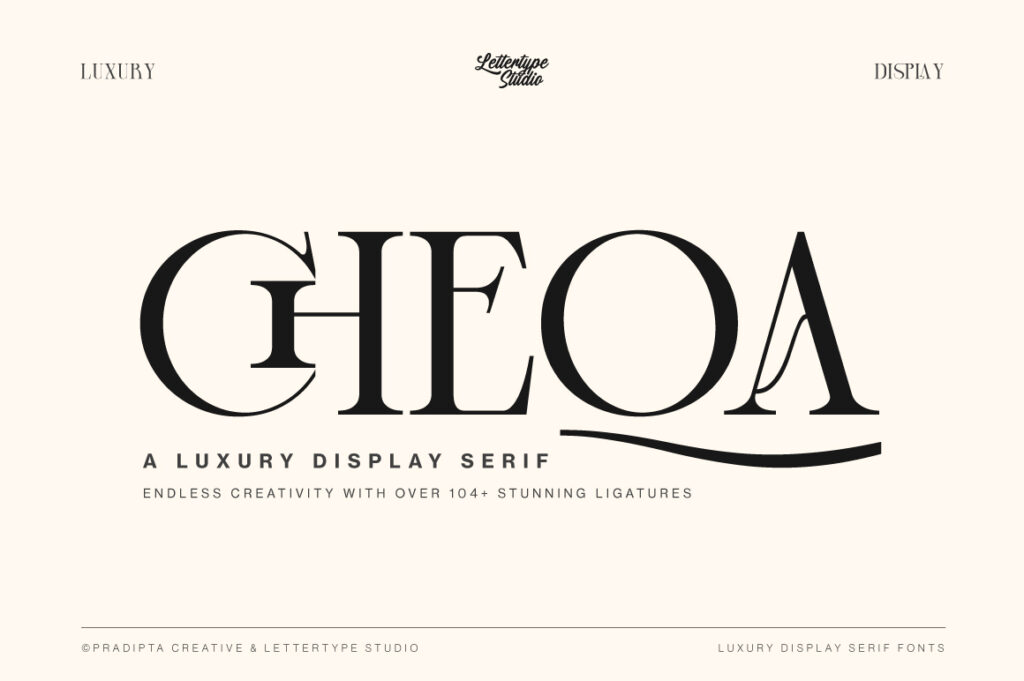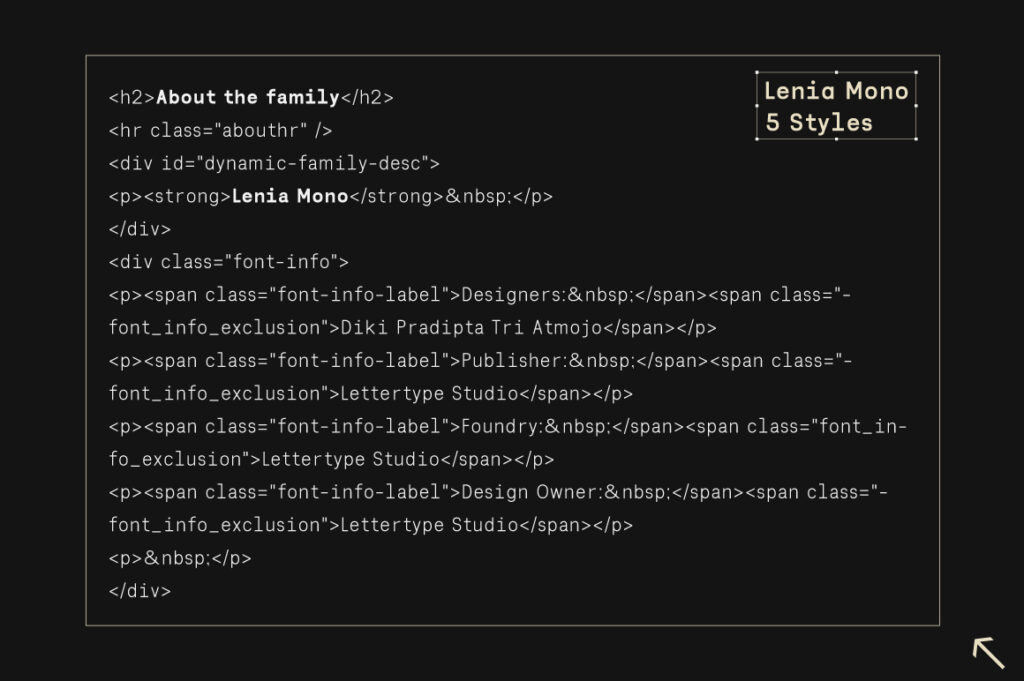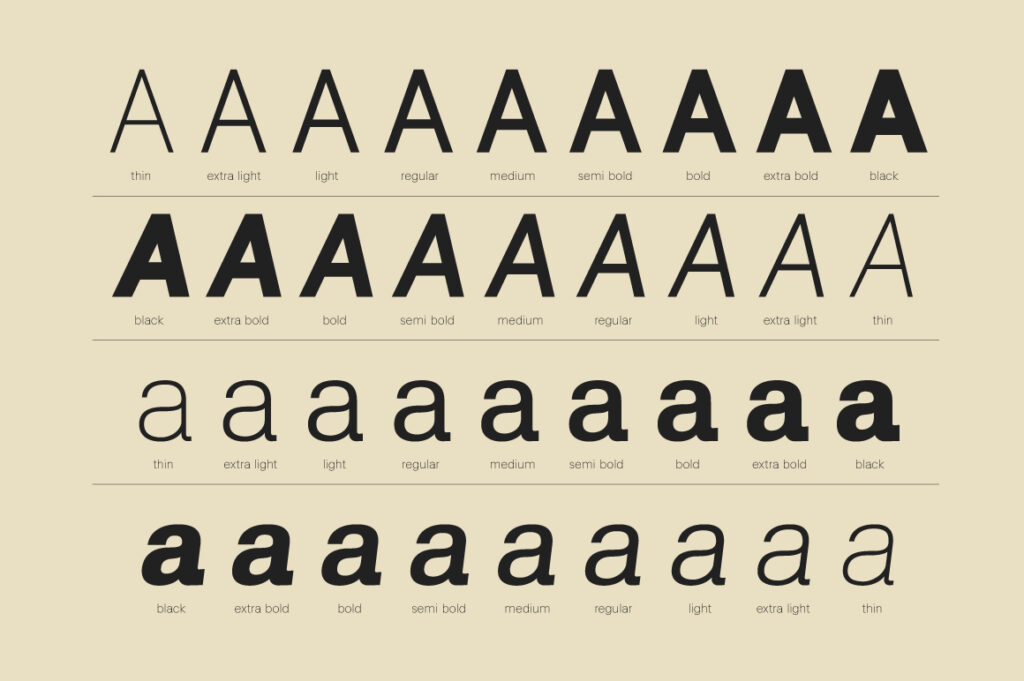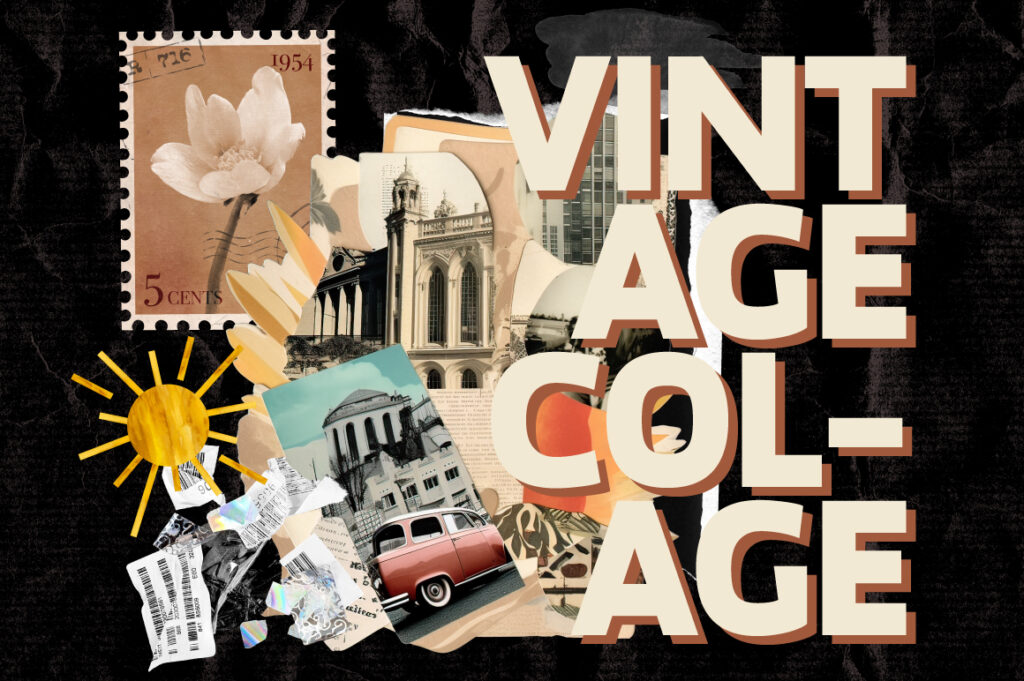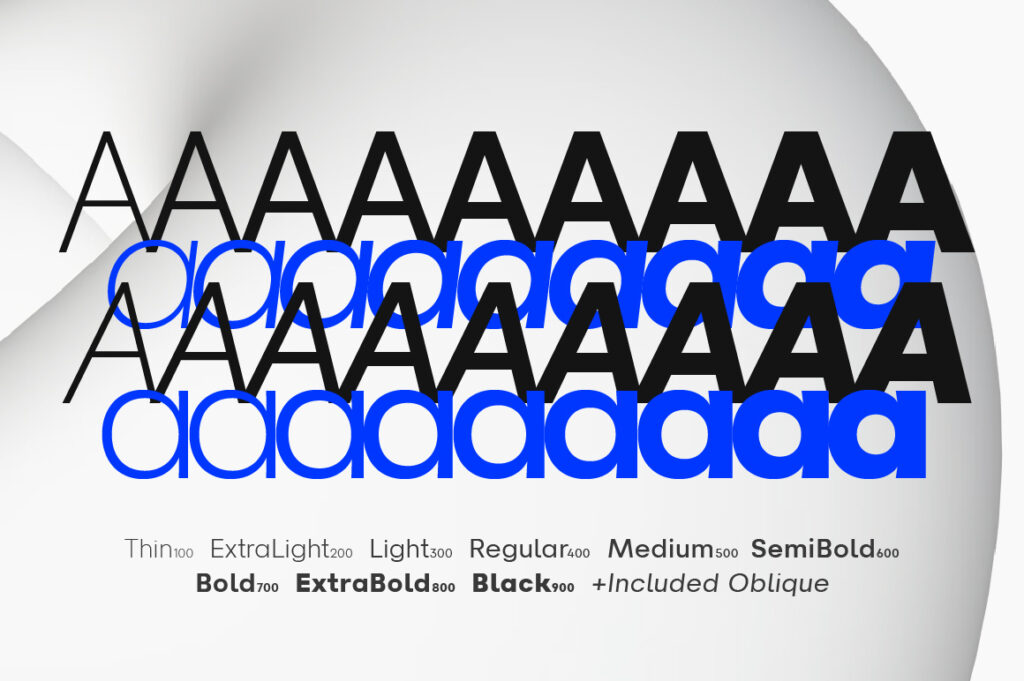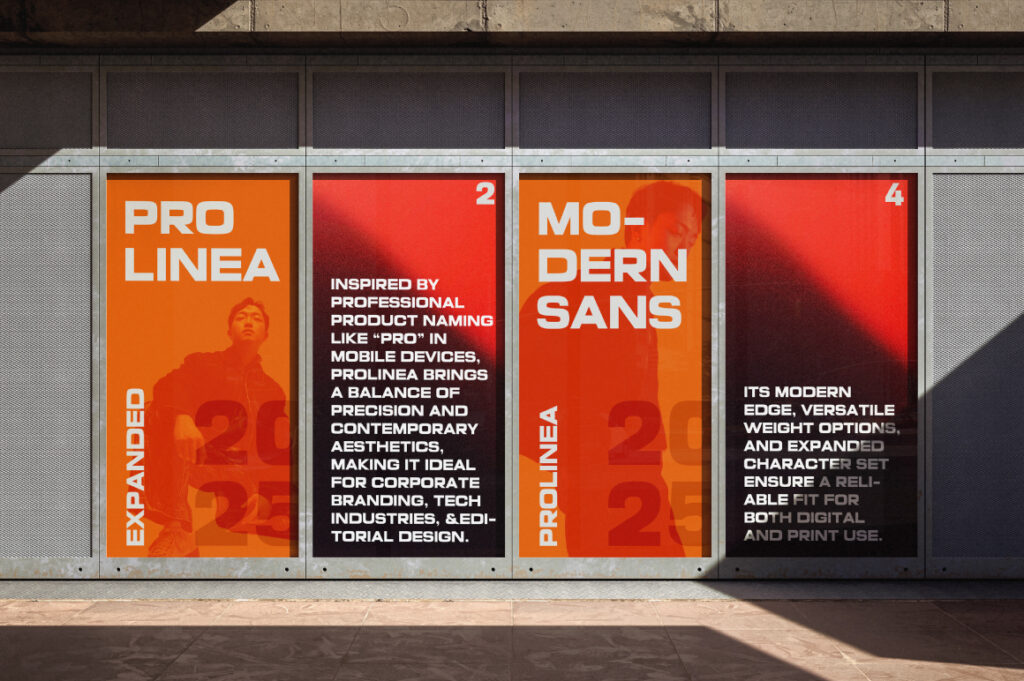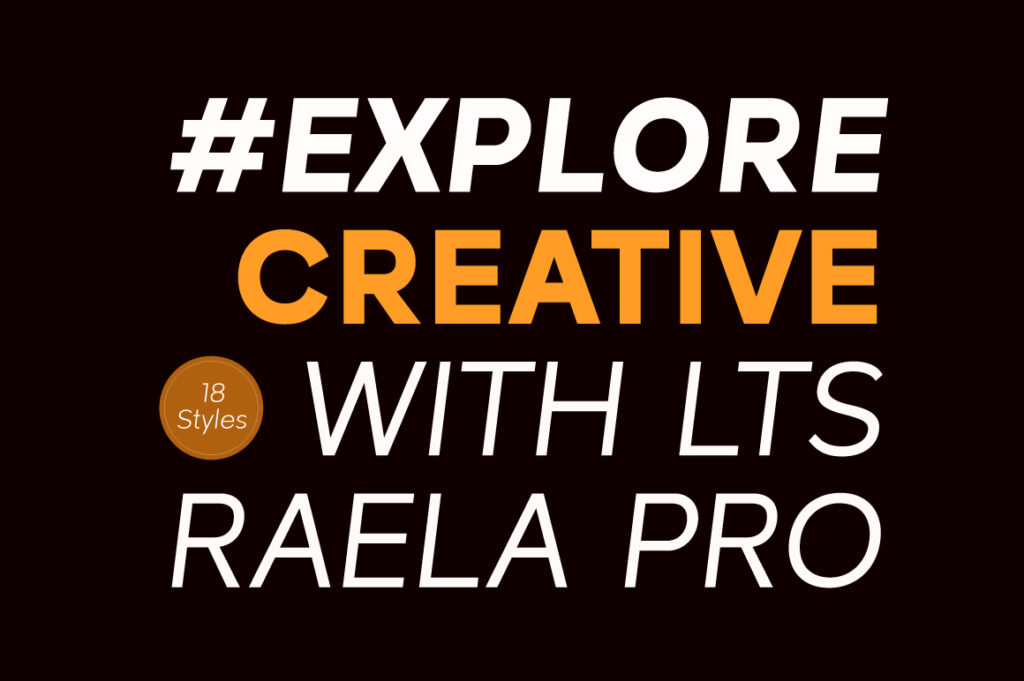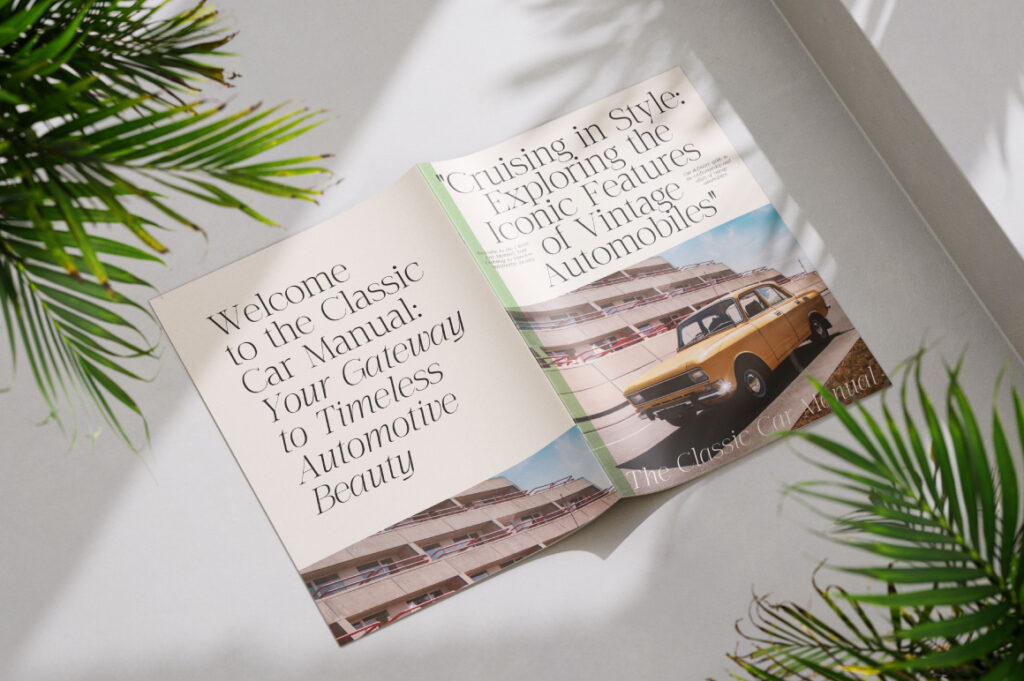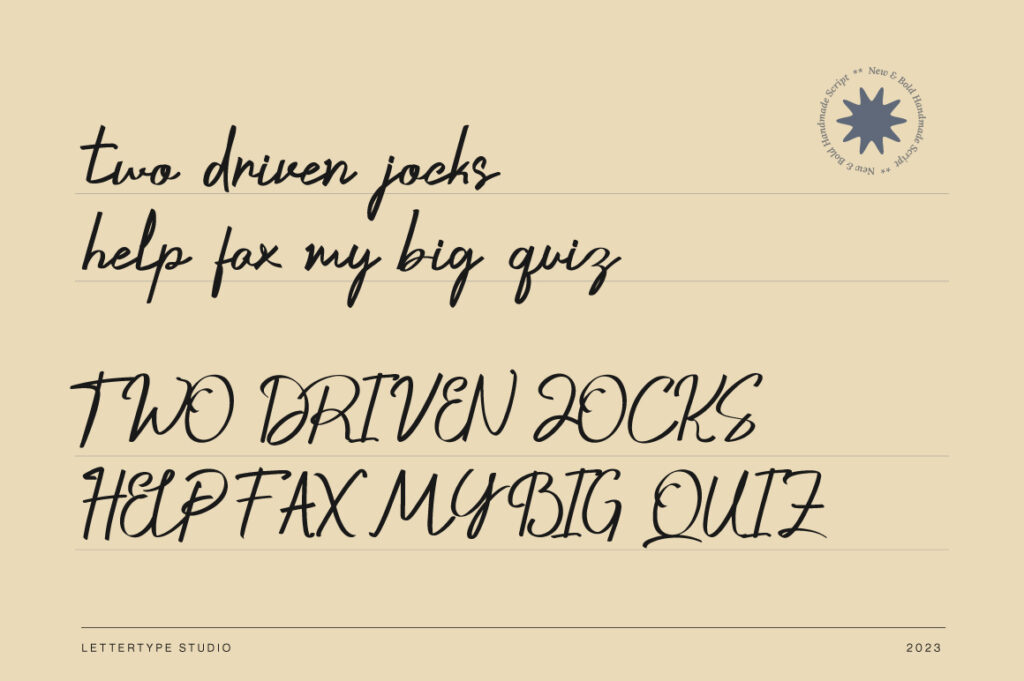
20 Most-Used Fonts by Designers — The Ultimate Guide for Modern Branding
Choosing the right typeface is one of the most important decisions a designer makes. A font defines personality, emotional tone, and the overall perception of a brand. To help designers navigate the crowded typography landscape, this guide presents the 20 most-used fonts in the creative industry, divided into:
• 10 all-time best-selling global fonts
• 10 top-recommended fonts from Lettertype Studio (LTS) chosen for versatility, commercial value, and modern branding needs
🔥 Top 10 All-Time Best-Selling Global Fonts
Below are the world’s most iconic, widely used, and commercially successful typefaces — along with their foundries.
1. Helvetica — Linotype
A timeless sans-serif that dominates corporate identity, signage, and international branding. Known for neutrality and readability, Helvetica remains the gold standard of modern typography.
2. Futura — Bauer Type Foundry
A geometric sans-serif classic with clean, modernist proportions. Futura is widely used in editorial work, fashion branding, posters, and minimalist advertising.
3. Garamond — Stempel / Adobe
A refined and elegant serif with deep historical roots. Garamond’s natural flow and superior legibility make it a favorite for books, magazines, and premium branding.
4. Gotham — Hoefler & Co.
The contemporary grotesk that shaped a generation of branding. Strong, clean, and trustworthy — Gotham is frequently used in corporate identity and political campaigns.
5. Montserrat — Julieta Ulanovsky (Google Fonts)
One of the most popular free fonts on the planet. Montserrat offers versatility for digital design, web UI, and modern branding without licensing barriers.
6. Bodoni — Bauer / Linotype
A high-contrast serif synonymous with luxury and editorial fashion. Bodoni delivers sophistication and bold character in headlines, magazines, and branding.
7. Times New Roman — Monotype
Arguably the world’s most recognizable serif. Still widely used in publishing, academic materials, and traditional corporate documents.
8. Roboto — Google
The default UI typeface for Android. Roboto’s structure blends mechanical precision with friendly curves, making it ideal for apps and responsive web layouts.
9. Avenir — Linotype
Designed with clarity and elegance in mind, Avenir remains a top choice for branding, packaging, and corporate communication.
10. Proxima Nova — Mark Simonson Studio
A modern web favorite that bridges the gap between geometric and humanist sans-serifs. Clean, approachable, and highly versatile.
Top 10 Lettertype Studio Fonts Designers Should Use in 2025
Below are ten carefully selected Lettertype Studio fonts — chosen for their commercial value, versatility, and strong performance in branding, UI, editorial, and display applications.
1. Naru Sans
A powerful geometric sans family with 18 styles. Perfect for branding, tech startups, editorial layouts, and multilingual projects thanks to its extensive support.
2. Lenia Sans
A contemporary geometric sans with a strong, confident structure. Highly polished and designed to perform in both digital and print environments.
3. Lenia Mono
A refined monospace family with strong rhythm and personality. Excellent for coding aesthetics, tech branding, dashboards, and editorial design.
Why you should buy it:
It brings a premium monospace look without feeling overly technical — making it suitable for branding, packaging, and visual identity systems.
Conclusion
These 20 fonts represent the most influential, widely used, and commercially valuable typefaces designers rely on today. Whether you are building identities, editorial layouts, UI systems, or creative campaigns, choosing the right typeface will elevate the entire visual experience.
The global classics provide reliability. The Lettertype Studio selections provide fresh, modern alternatives ready for today’s design needs.